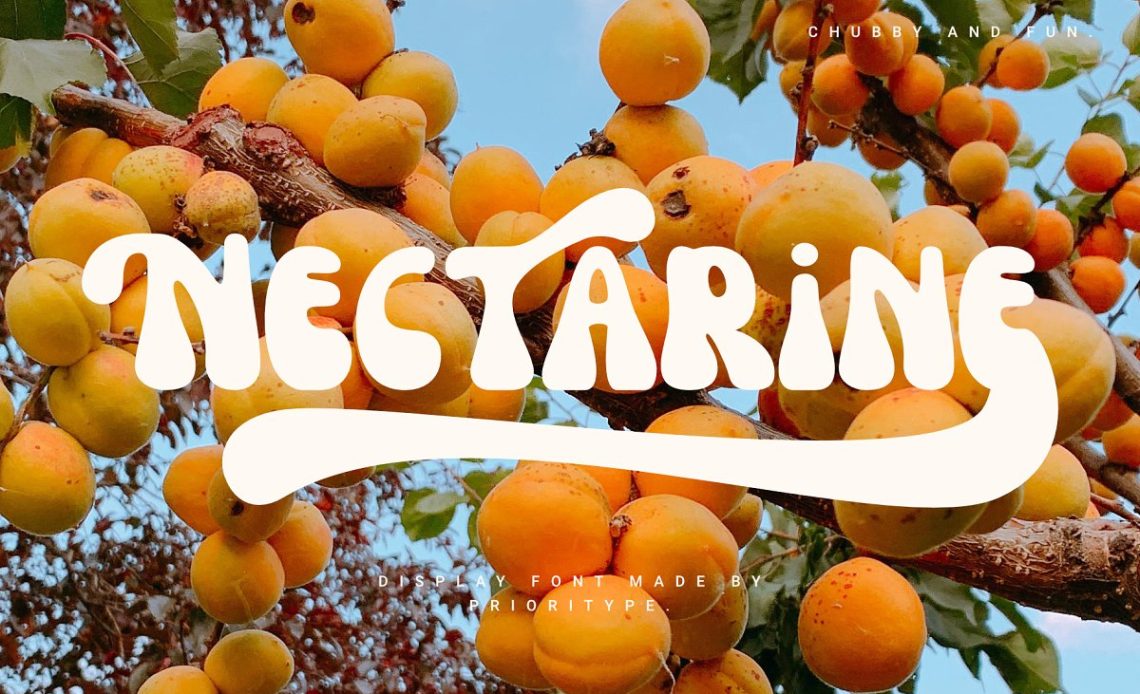
Introducing Nectarine - Display Font, the ultimate choice for fashion logos and beyond. Created by the talented Prio Nurokhim Aji, this unique display font is here to elevate your designs to new heights.
With its chubby and fun appearance, Nectarine brings a perfect blend of classic and modern styles, making it a versatile addition to your font collection. But what sets it apart is its abundance of alternative characters that allow for endless customization options.
Whether you're designing social media posts, magazines, posters, stickers, landing pages, or anything else, Nectarine is your go-to font. Its captivating features include uppercase and lowercase letters, numerals, punctuations, multilingual support, alternates, ligatures, and PUA encoding.
Nectarine isn't just a font; it's a tool that empowers your creativity and helps you stand out from the crowd. Its eye-catching and emotionally captivating design will leave a lasting impression on your audience, making your creations truly unforgettable.